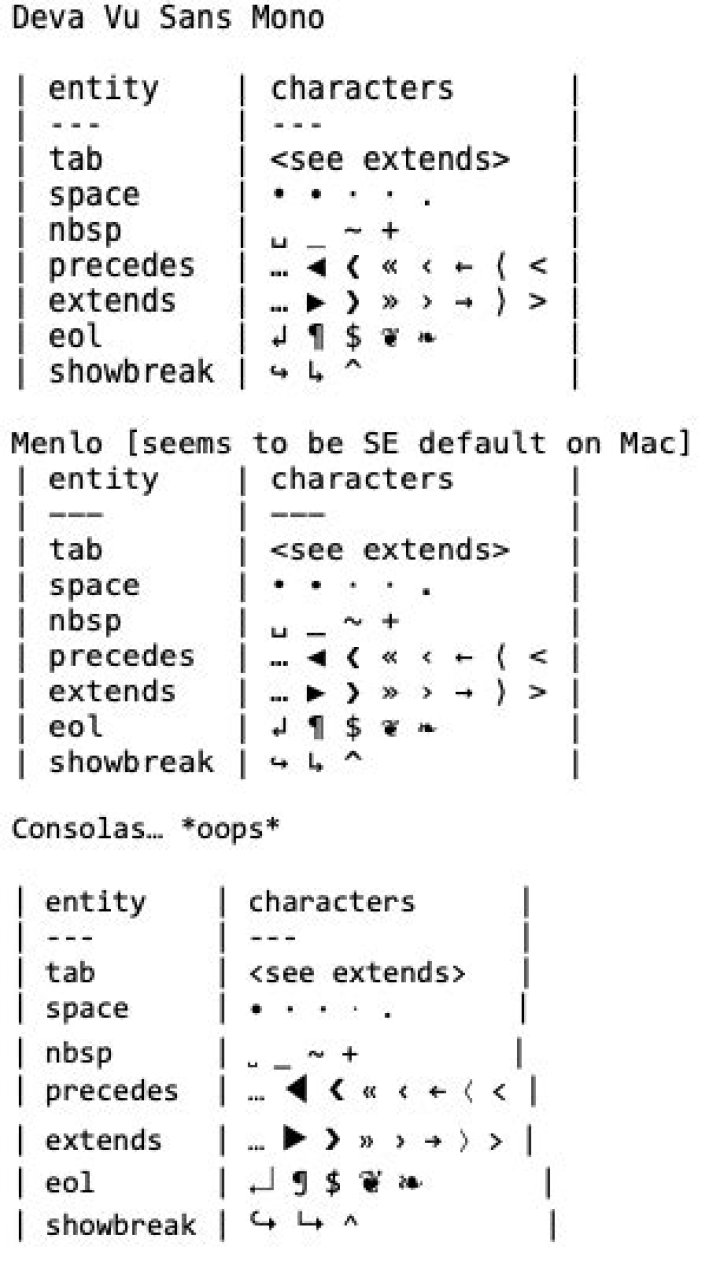
The line lengths in this code section in the original question are not equal. See below for the corrected version. I'm unsure as to how this may have affected the images in question
| entity | characters | | --- | --- | | tab | <see extends> | | space | • ∙ · ⋅ . | | nbsp | ␣ _ ~ + | | precedes | … ◀ ❮ « ‹ ← ⟨ < | | extends | … ▶ ❯ » › → ⟩ > | | eol | ↲ ¶ $ ❦ ❧ | | showbreak | ↪ ↳ ^ | Vim (the only editor that shows it correctly, without misaligning!):
Emacs:
The font is the same: Consolas.
Why does it happen on Windows 7 for me? Do you have the same issue on Windows 10? How can I stop it?
[Update, see comments under Tetsujin's answer] Here is how I see the code example from the top of my question:
(The browser is Chromium-based Edge. The font is Consolas.)
Line-length corrected version of the code section…
They're all using different font substitutions for glyphs not contained in Consolas itself [or failing to find substitutions in some cases*] & the subs are not monospace [or not the exact same size monospace].
One way to test would be open the font in an editor & see which glyphs it is missing.
It's harder to tell what is being substituted, unfortunately.
Complete 'cure' would be to use a font that already contains all your required glyphs, so no subs would be necessary.
Deja Vu Sans Mono is always a good (& nicely cross-platform) candidate for being more comprehensive than others
& Wikipedia has a list of mono-spaced fonts at
*Vim, emacs, Sublime & Notepad all failed to substitute all the chars, so ironically Vim "worked the best" because it actually "failed the best".
Incidentally, I'm looking at this on Mac, which is "supposed to be good at this kind of thing"… proving no system is perfect - it screws two lines using Stack Exchange's standard fonts…
I just noticed the line lengths in the code section at the top of the question were not all equal, mainly 15 chars between pipes but 2 lines at 17 chars… which kind of throws everything out.
Revised line-length-corrected pic of Mac's font substitution using SE's defaults…
Which now renders correctly (Did I mention Mac is supposed to be good at this stuff? ;)
Line-length-corrected image of Deja Vu Sans, Menlo [seems to be SE Mac default] & Consolas [which does not fare well in this comparison.]
13Whenever I'm working with content like ASCII art flow charts where alignment is critical, I like to paste the content into something like Word as a sanity check. Pasting the content from your question, pressing Ctrl+A, and changing the font to Consolas resulted in:
Now, place the cursor after a character, and the font selector at the top of the screen will indicate which font is being used for that character. I can now see that the second-to-last dot on the "space" line is using Cambria Math, the first entry in "nbsp" is using MS Gothic, the glyphs rendered as blue boxes are Segoe UI Emoji, etc. Those all indicate characters that weren't available in Consolas. That makes it fairly easy to test various font choices and find one that has all the glyphs you need.
In the above screenshot I've also told Word to display formatting marks for whitespace characters (File > Options > Display). This typically makes it very obvious which characters are a different width than the others. In this particular example the marks blend in with the dots on the "space" line, but it's still enough to see that the dot that's roughly underneath the "x" in "extends" is narrower than the others.